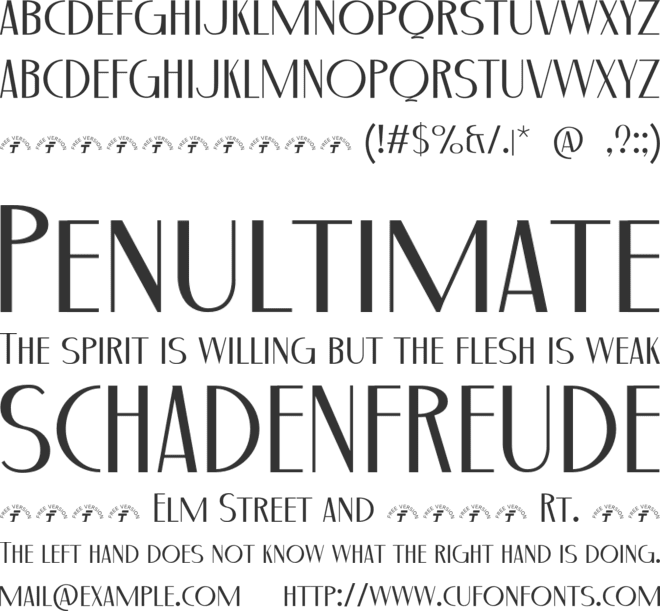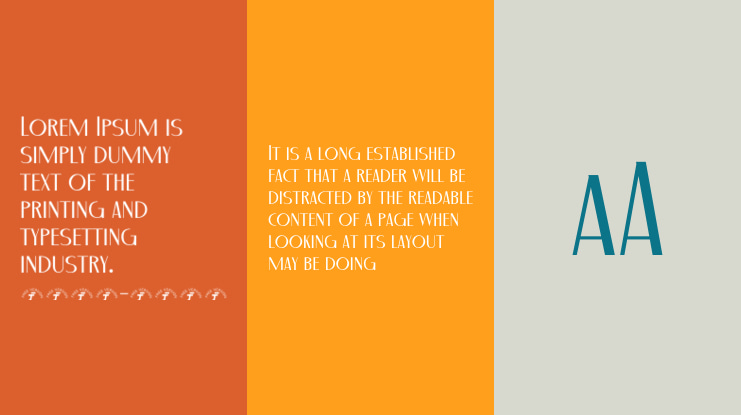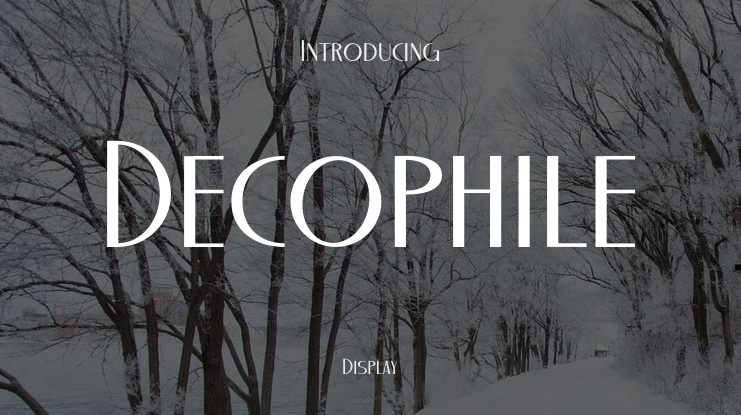
Decophile Font
FT Decophile is a sophisticated Art Deco-inspired display font that captures the spirit of modern elegance and timeless luxury. With its tall letterforms, geometric balance, and subtle curves, this typeface brings a refined aesthetic to branding, packaging, posters, and editorial designs.
Each character in FT Decophile is carefully designed to reflect precision and style — combining minimal strokes with elegant proportions that echo the glamour of the 1920s while maintaining a distinctly contemporary look.
Perfect for logos, fashion magazines, perfumes, invitations, or boutique branding, FT Decophile adds a touch of class and confidence to any creative project. Its clean details and stylish flair make it ideal for designers seeking a bold yet graceful visual statement.
✨ Features:
Uppercase & lowercase letters
Numbers & punctuation
Multilingual support
Elegant ligatures & alternates
Whether you’re crafting a luxury brand identity or editorial headline, FT Decophile offers the perfect balance of modern simplicity and vintage sophistication.